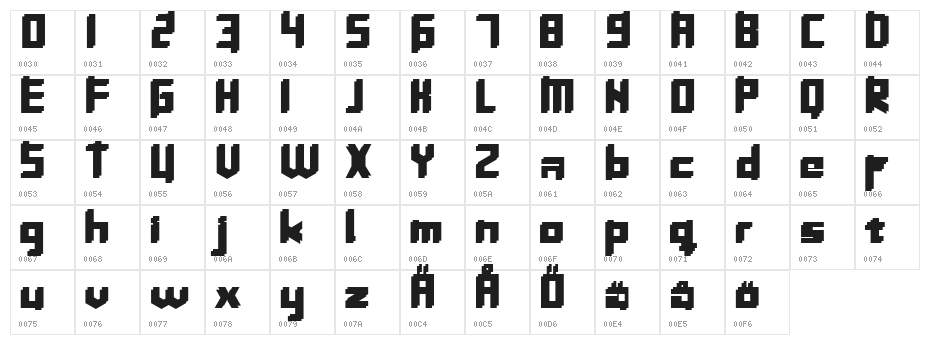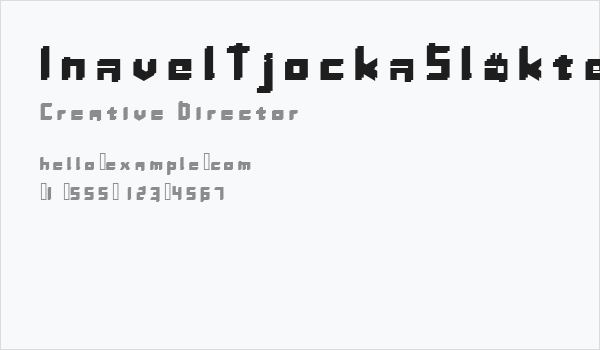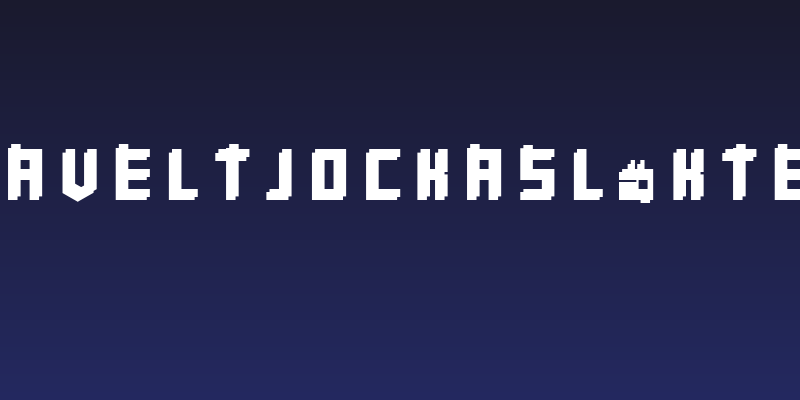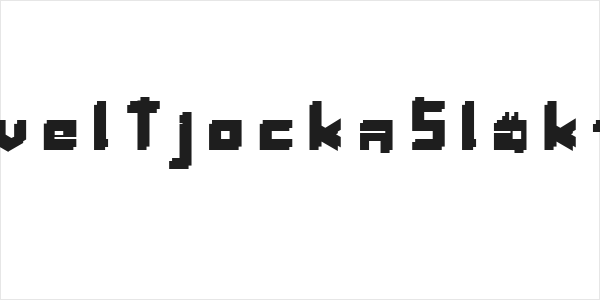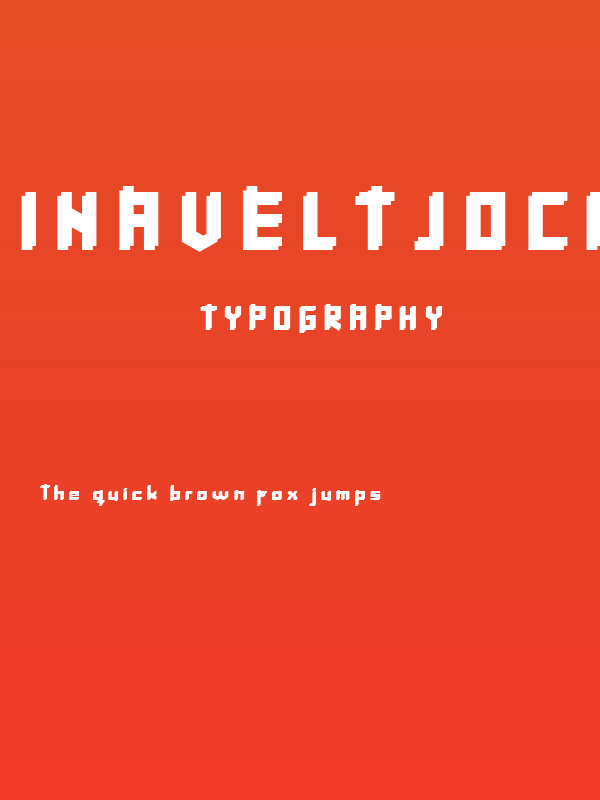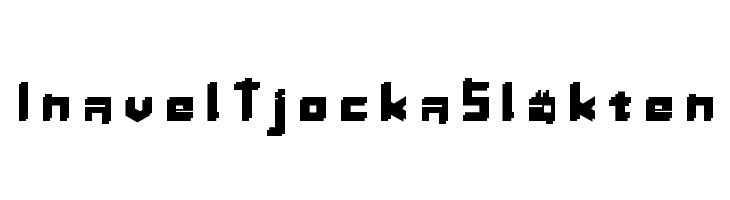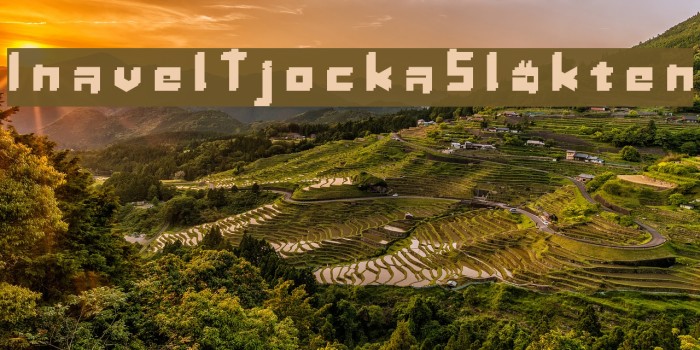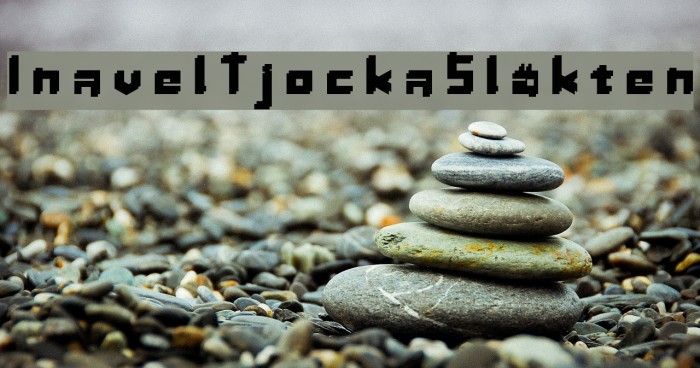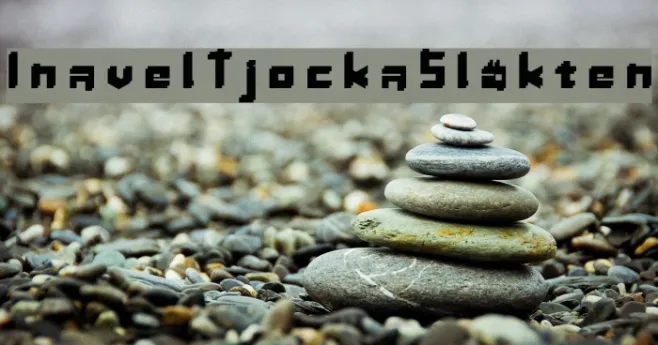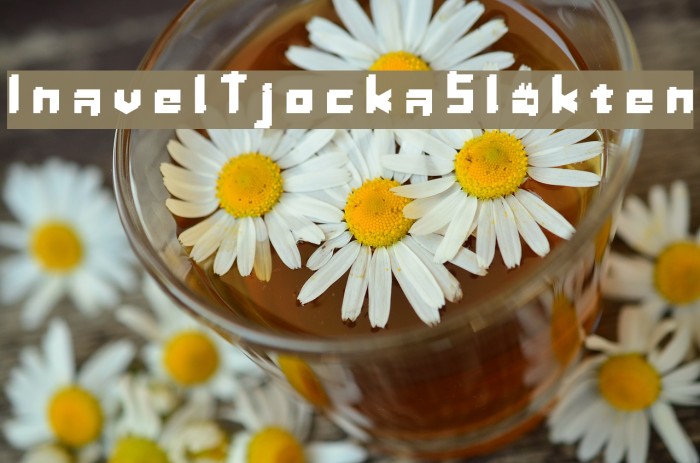
InavelTjockaSläkten Font
InavelTjockaSläkten Description
This font features a bold, pixelated design reminiscent of early digital or video game aesthetics. Each character is constructed with sharp, blocky edges, giving it a distinctly retro and geometric appearance. The uppercase and lowercase letters maintain a consistent height, contributing to a uniform look across text. Numbers and special characters follow the same design principles, ensuring visual coherence. The font's style is both playful and nostalgic, ideal for projects that aim to evoke a sense of digital nostalgia or a retro gaming vibe.
| Overall Style | Retro, Digital, Geometric |
| Proposed Projects | Ideal for video game designs, retro-themed posters, digital art projects, and any creative work that seeks to capture a nostalgic digital feel. |